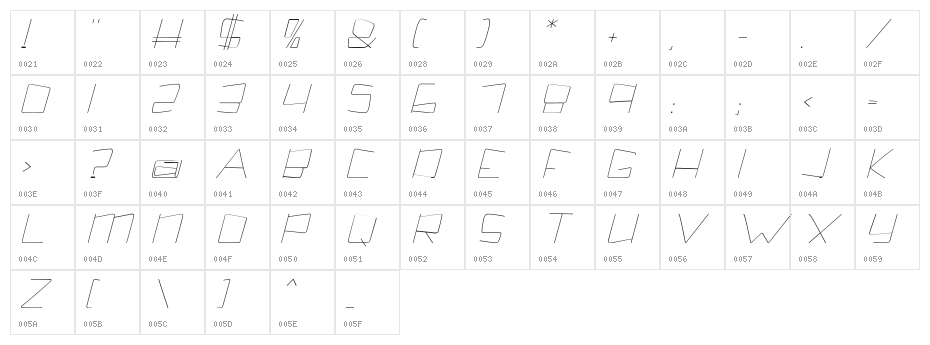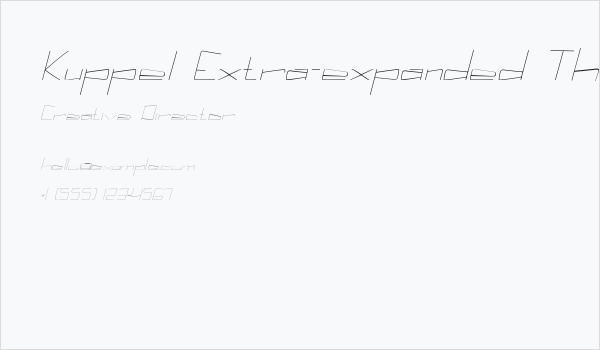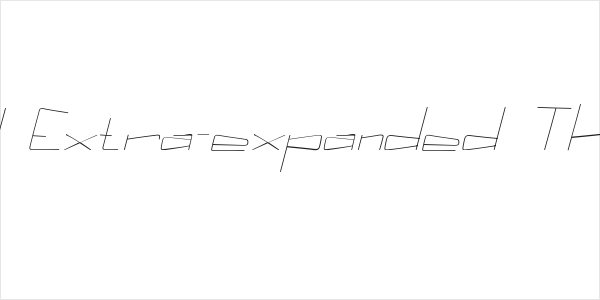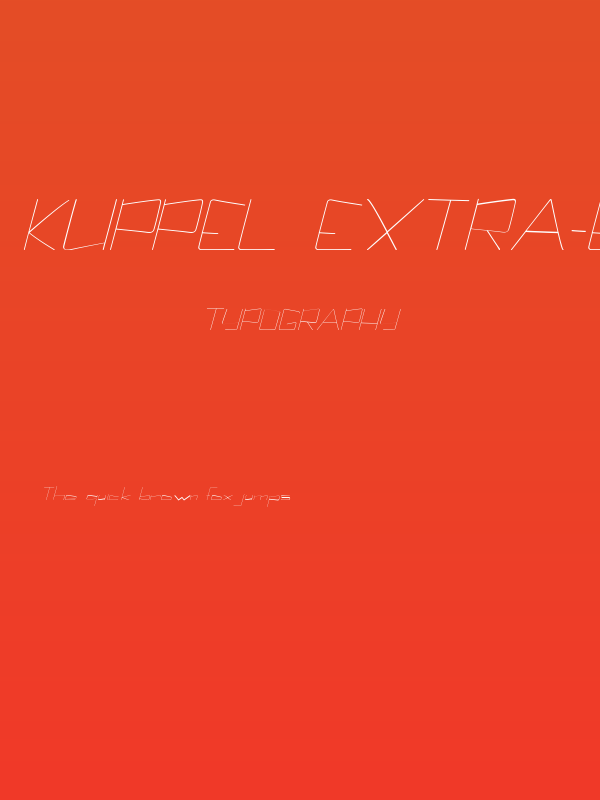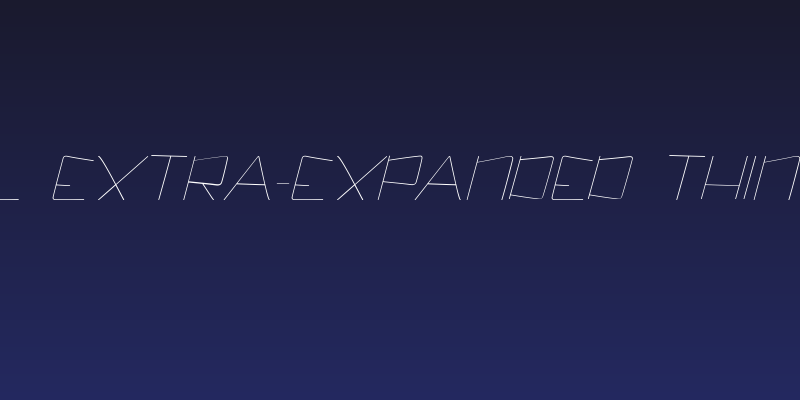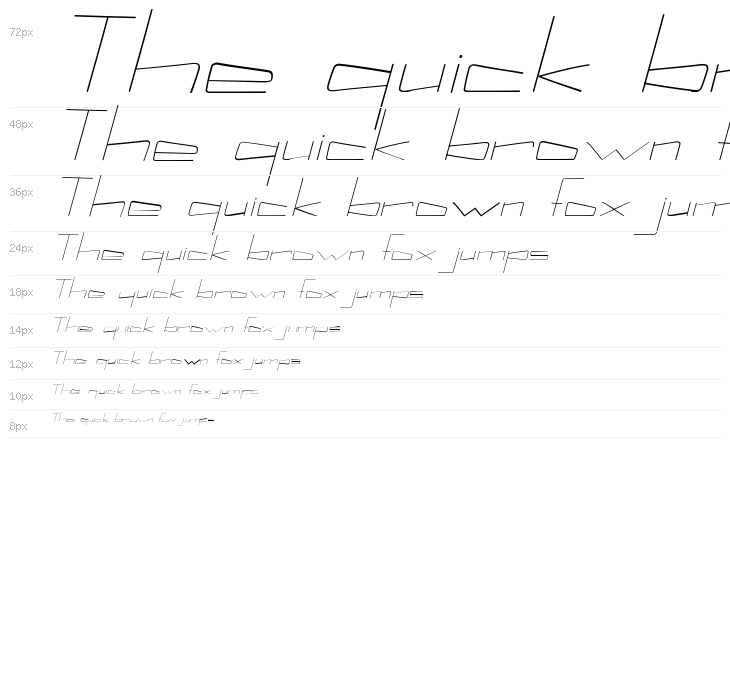
Kuppel Extra-expanded Thin Italic Font
Kuppel Extra-expanded Thin Italic Description
This font features a sleek, modern design with an extra-expanded width and thin strokes, giving it a delicate yet futuristic appearance. The italic style adds a sense of motion and elegance, making it suitable for dynamic and contemporary designs. The characters are geometric and angular, with a consistent stroke width that maintains a clean and minimalistic look. The spacing between characters is wide, enhancing readability and giving the text a spacious feel. This font is ideal for projects that require a modern and sophisticated touch, such as tech branding, innovative product packaging, or stylish editorial layouts.